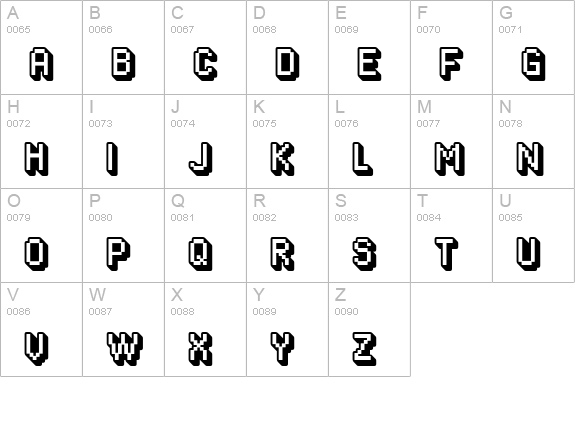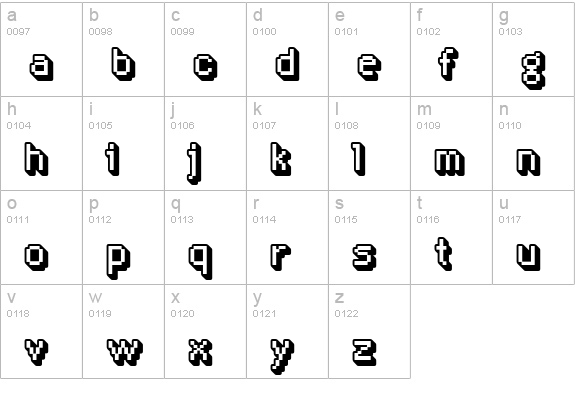
Algol IX Font Details
The Algol IX font is a modern and stylish typeface that exudes sophistication and elegance. Its sleek lines and geometric shapes make it perfect for a wide range of design projects, from logos to posters to websites. The clean and crisp design of Algol IX font ensures readability while adding a touch of contemporary flair to any text. What sets Algol IX font apart is that it is available for free download at FontsMarket.com. This means that you can easily access this high-quality font without any cost, making it a valuable asset for designers and creatives looking to elevate their projects. With its versatility and accessibility, Algol IX font is sure to become a go-to choice for anyone in need of a stylish and modern typeface.